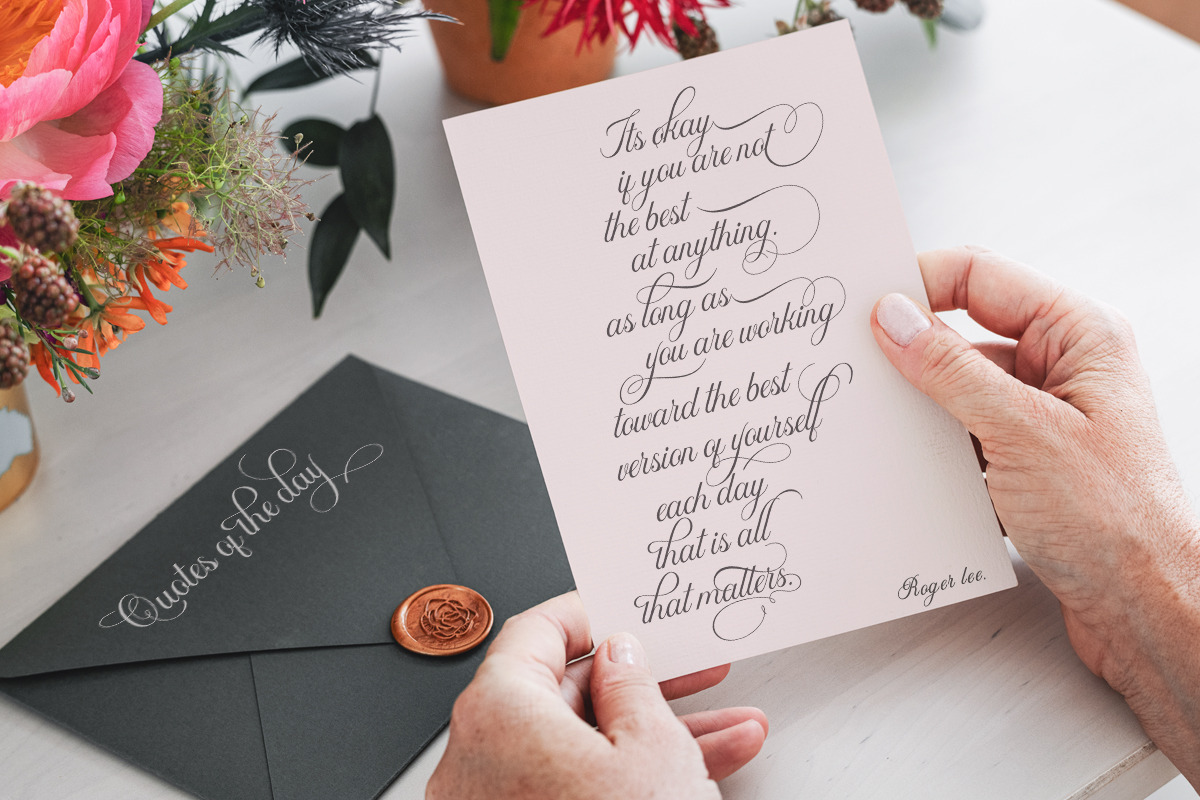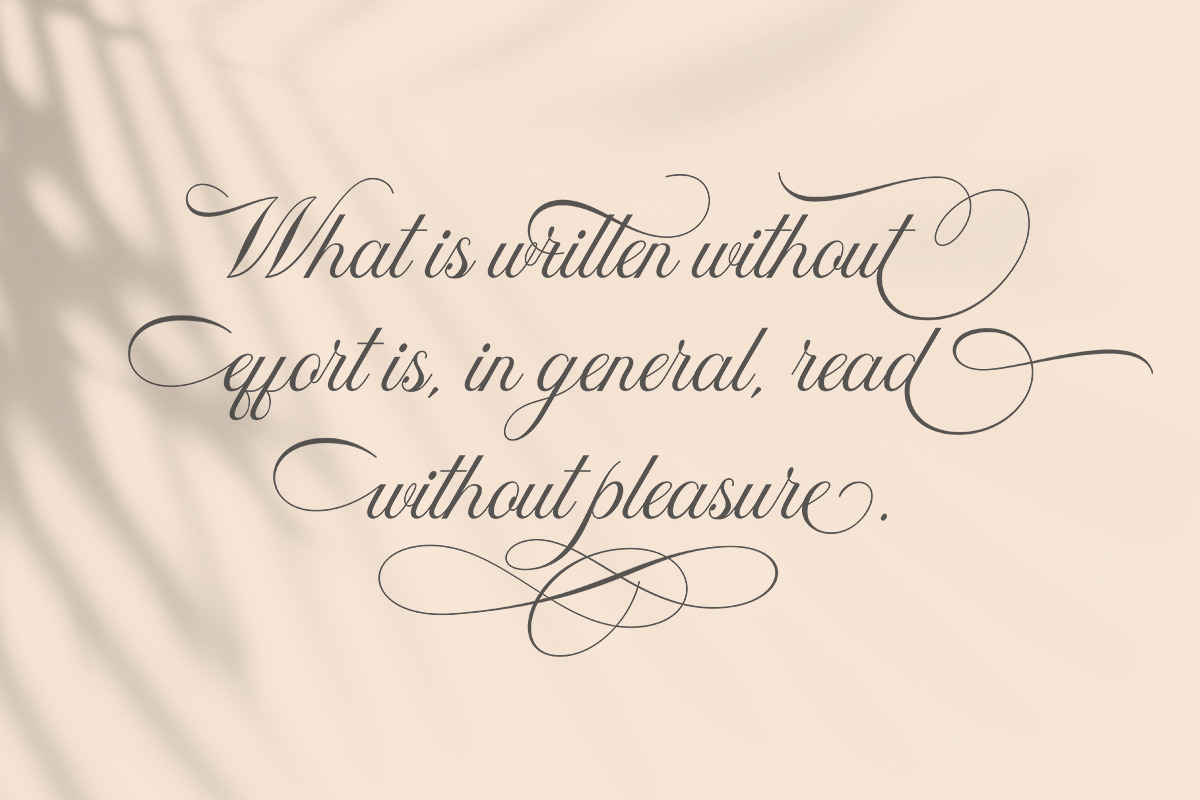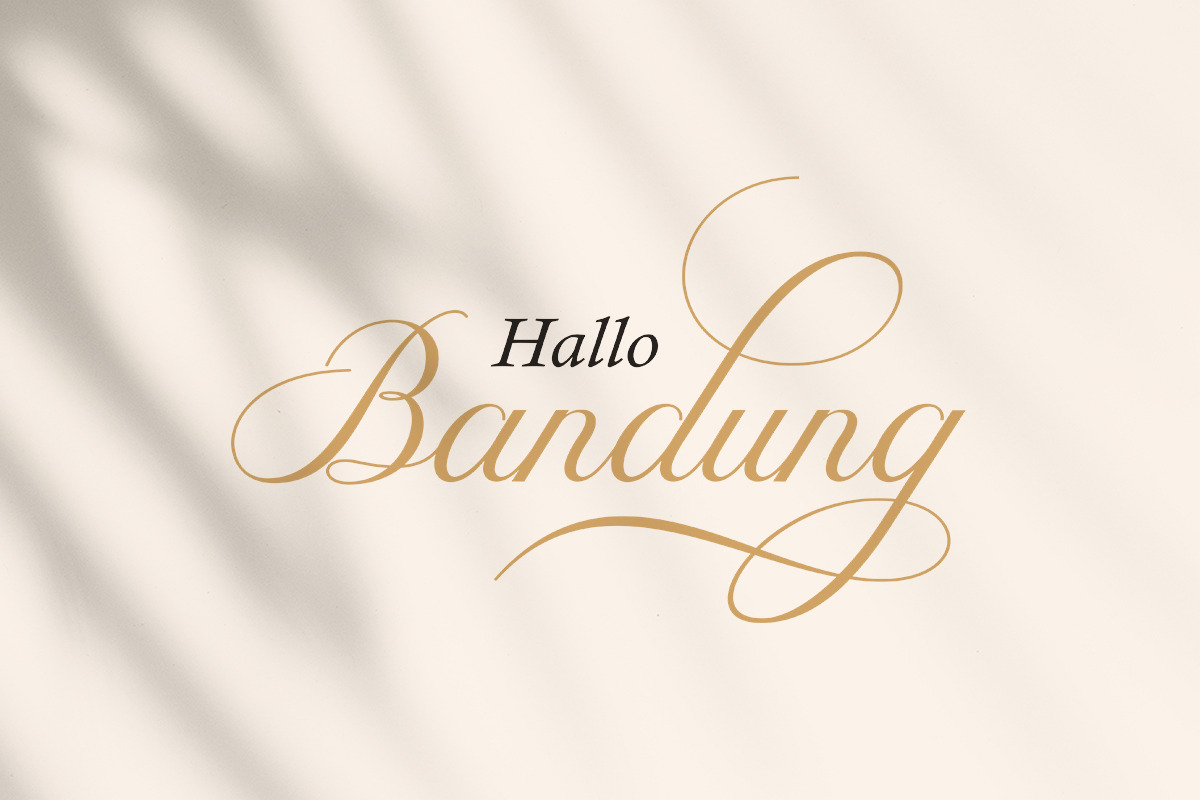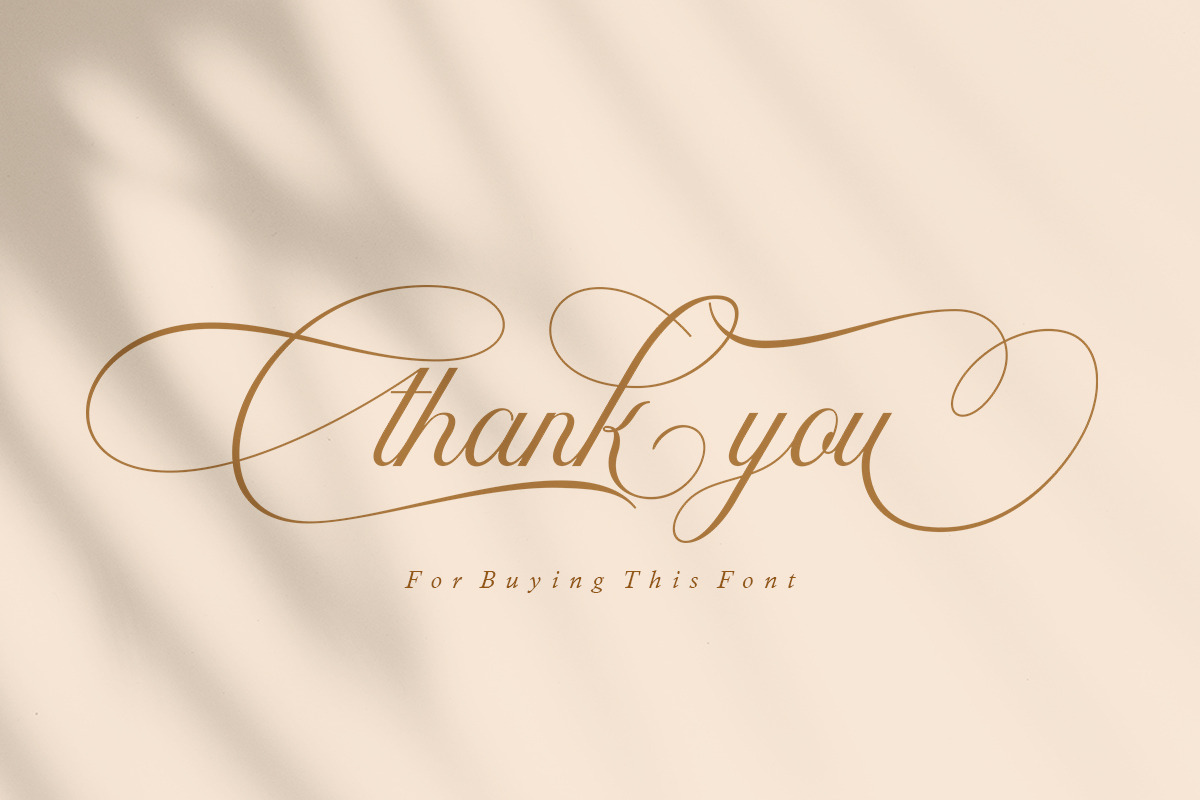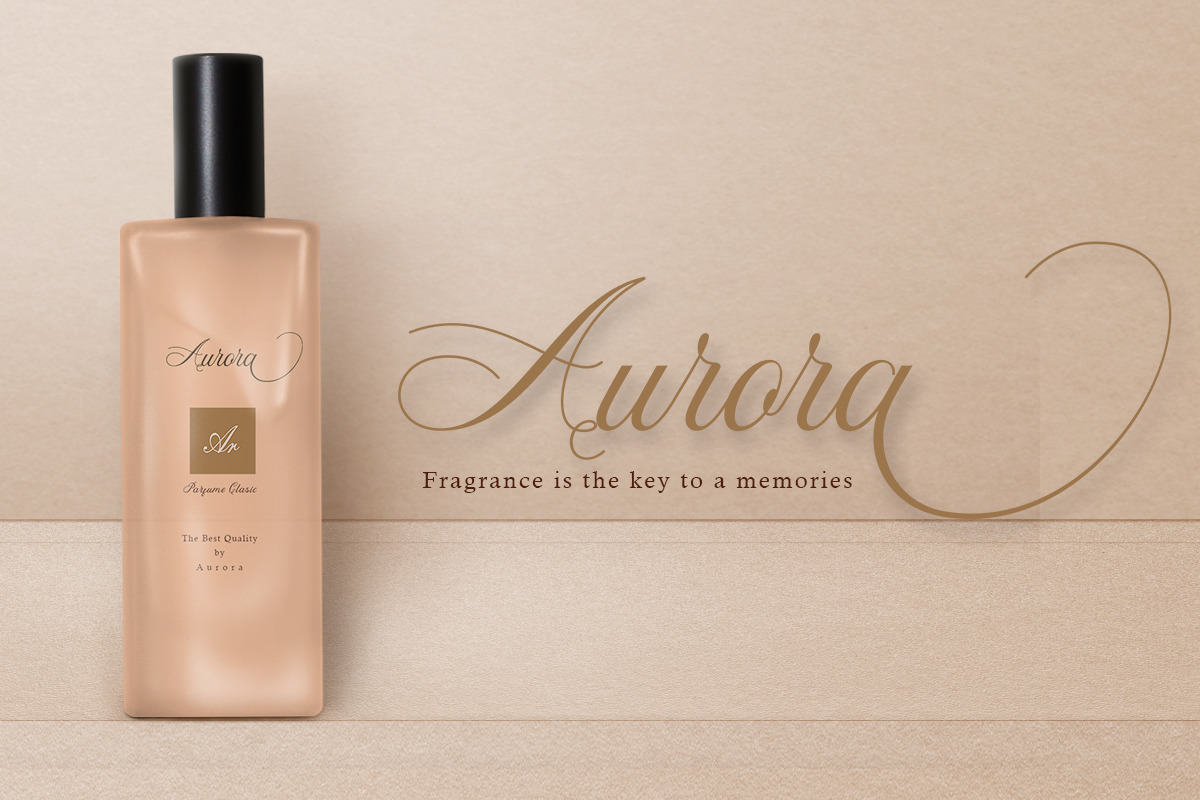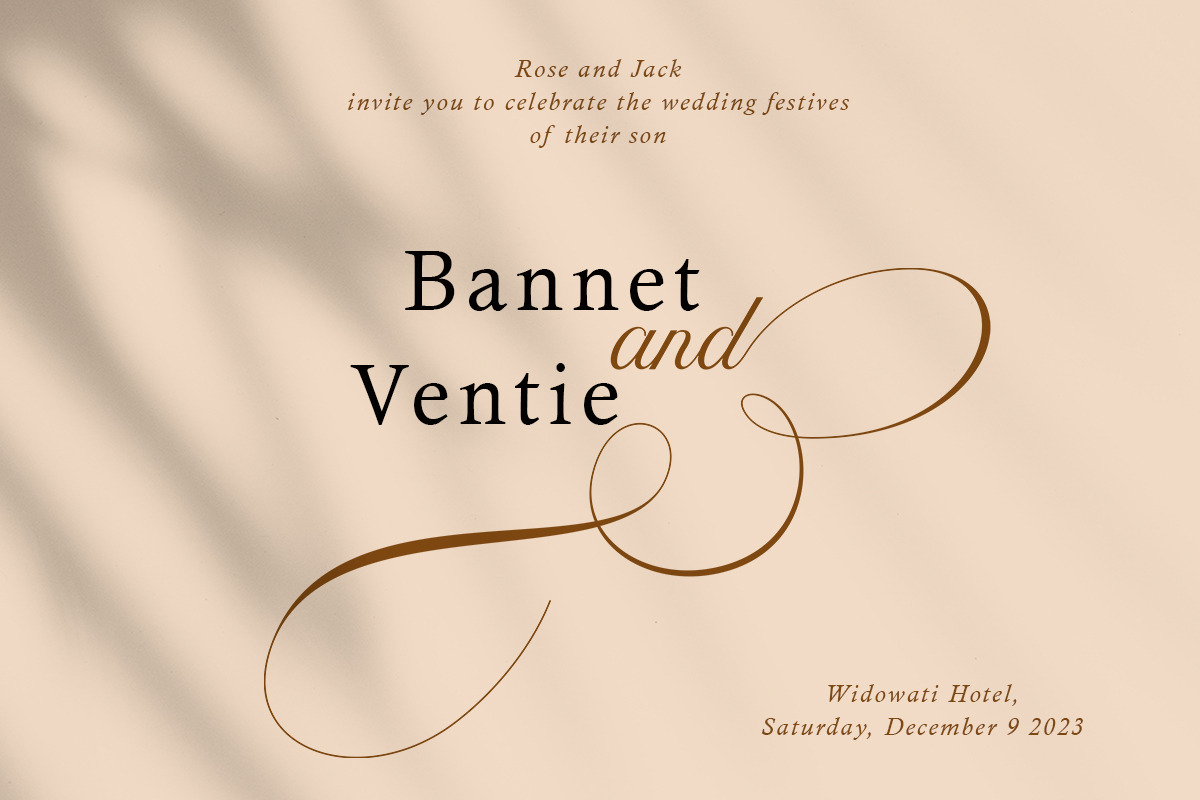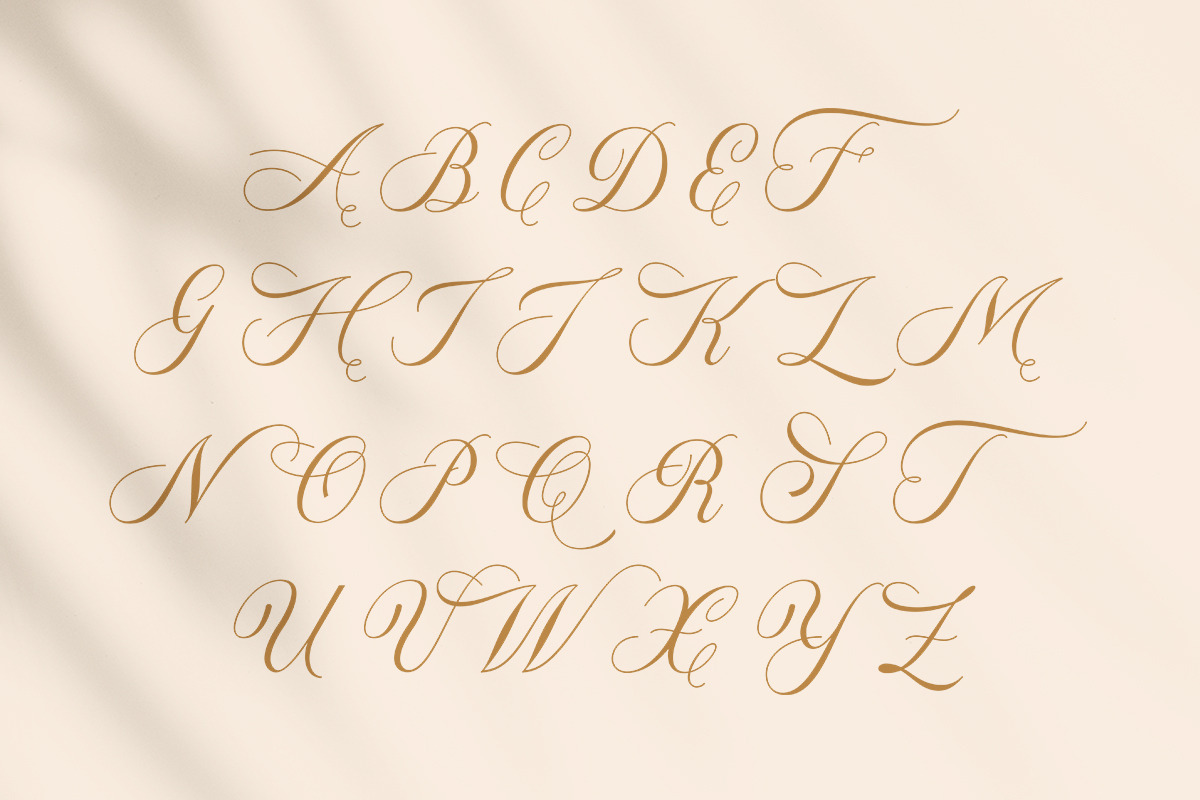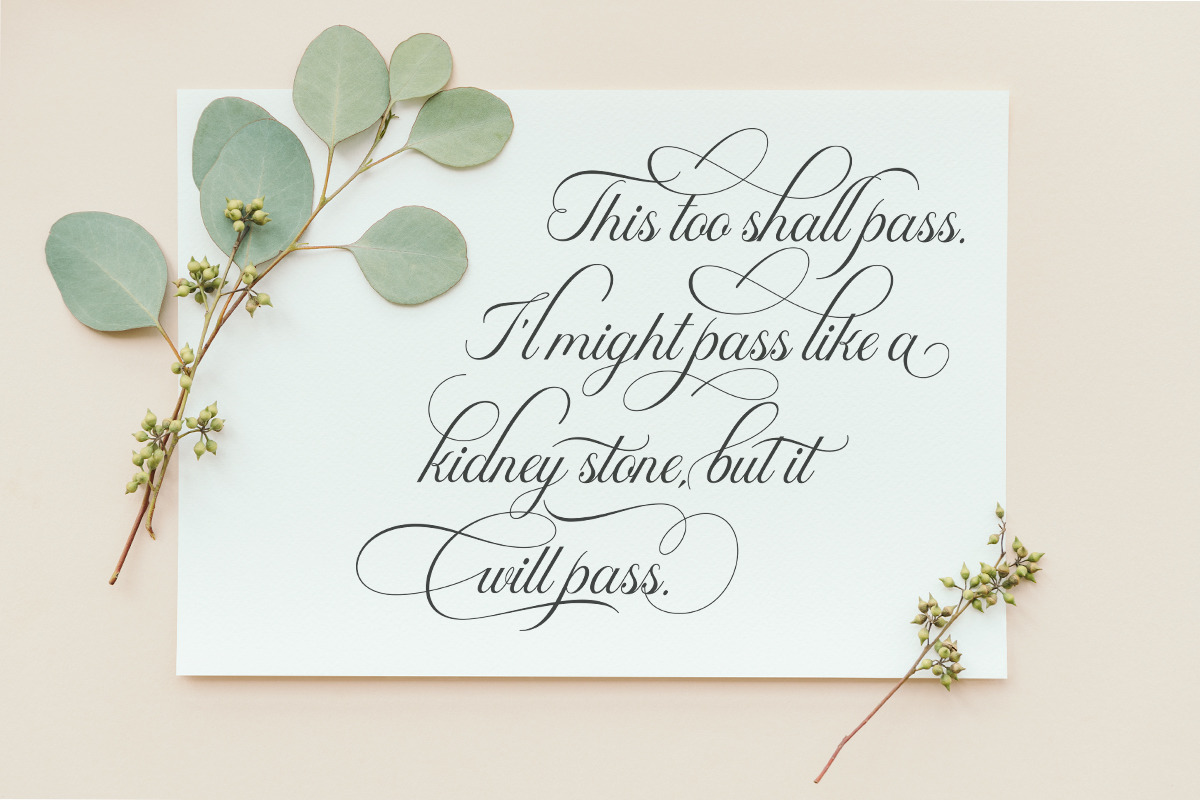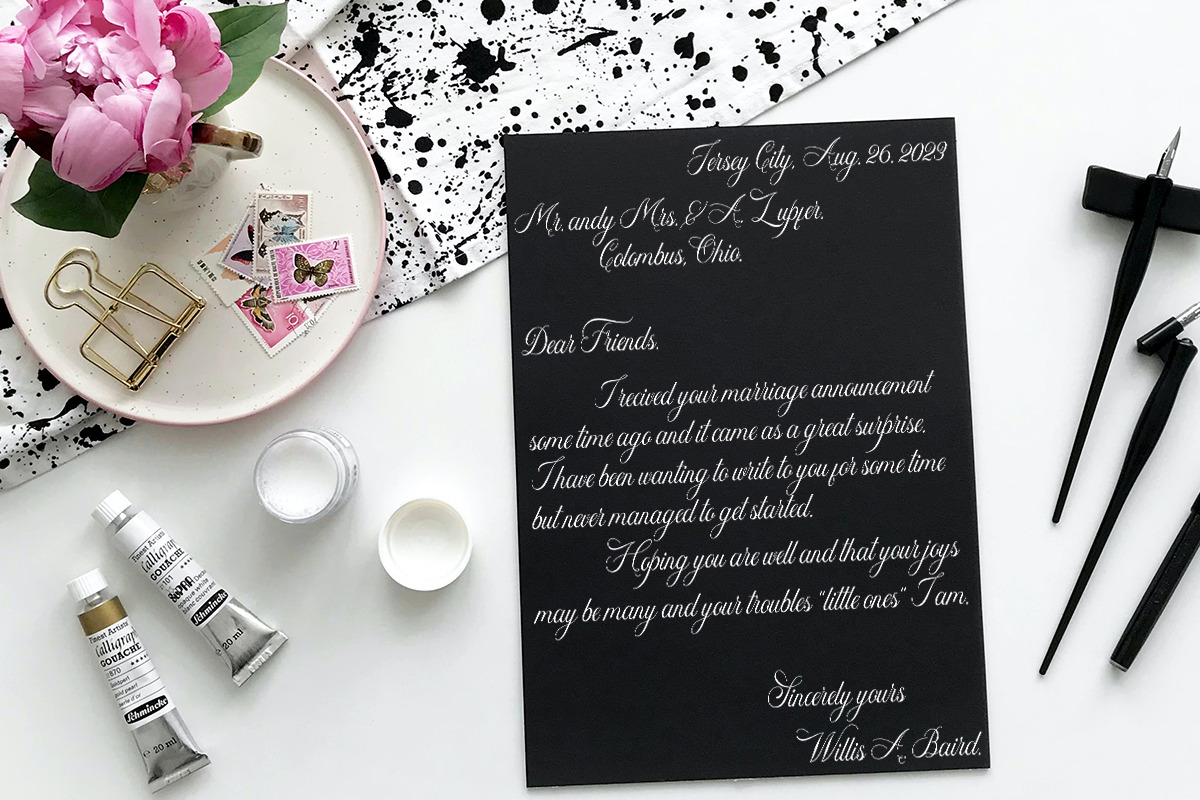
Donaparte
new modern calligraphy font - Donaparte. This beautiful script is for those who need elegance and style for their designs and is perfect for wedding invitations, saving date cards and feminine branding.
Donaparte has includes a full set of Basic Uppercase and Lowercase Characters, Numbers and Punctuation. Also contains ligatures and many alternative styles to perfectly recreate natural calligraphy (check the preview to see them all).